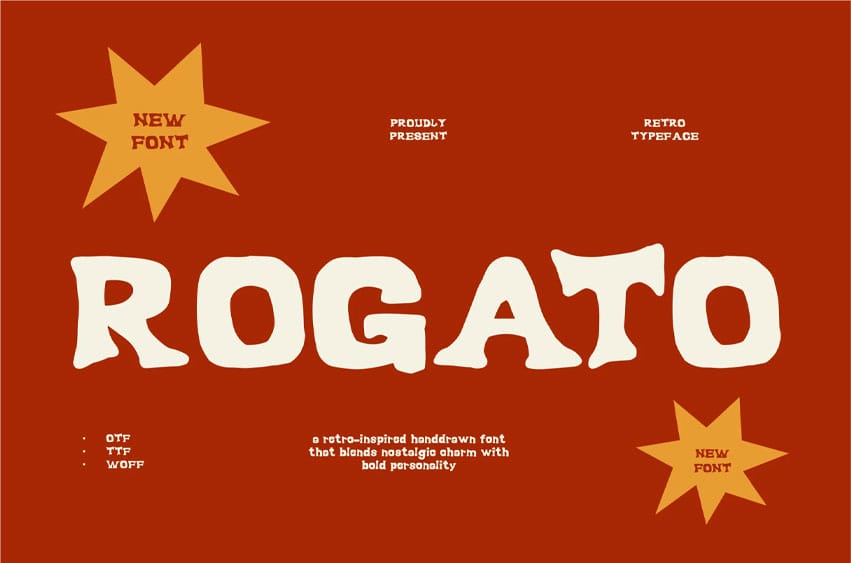
Rogato Font is a striking retro font that effortlessly blends the boldness of vintage typography with a touch of modern sophistication.
With its rounded, geometric shapes and smooth curves, Rogato evokes the classic charm of the 70s while maintaining a fresh, contemporary feel.